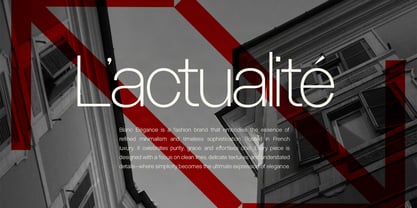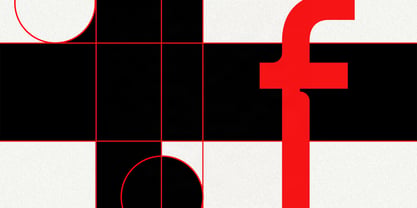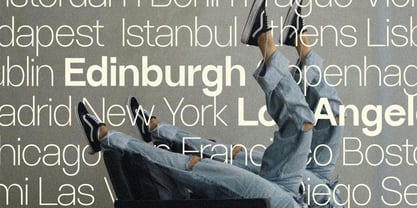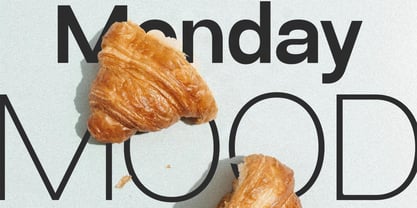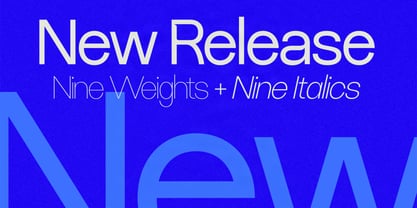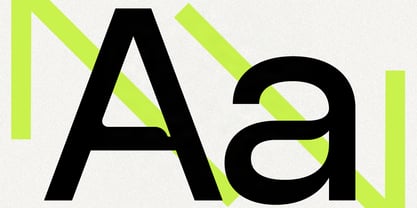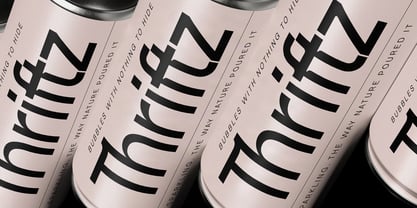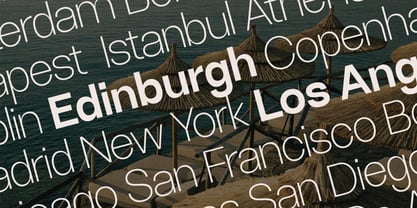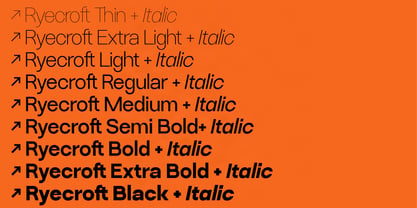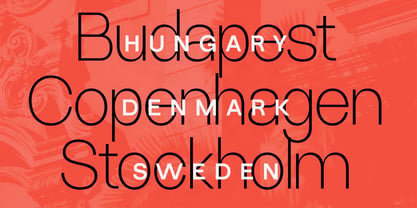
SLTF Ryecroft
SLTF Ryecroft is a modern grotesk sans serif in 9 weights and 9 true italics.
Wide open counters, low contrast and clean cut terminals, so it holds at caption size and at poster size. The italics are drawn as true italics, with the two-story roman a becoming a single-story a, which changes the rhythm of a line far more than the slant does.
There is also a variable font with two axes, Weight from 100 to 900 and an Italic axis that swaps in the true italic forms as you cross it. The variable version is available only at SilverStag Type Foun dry